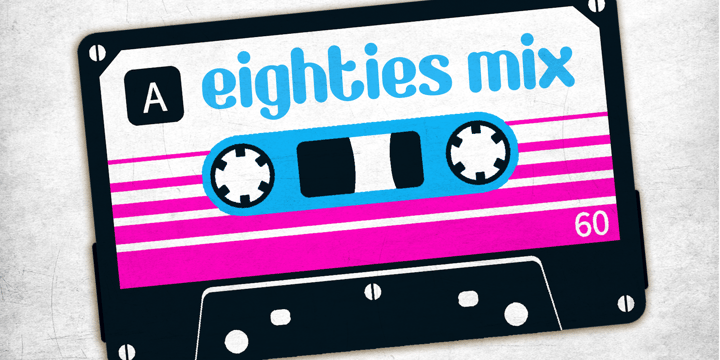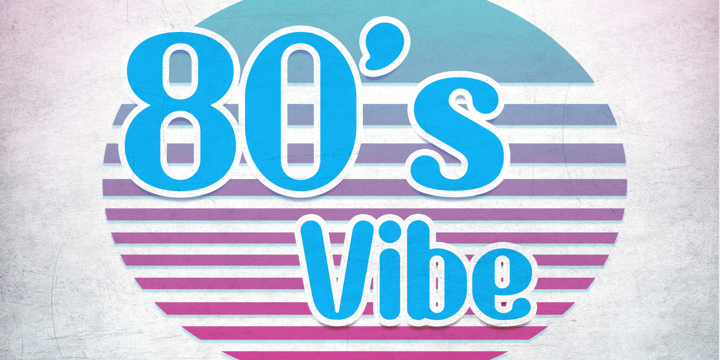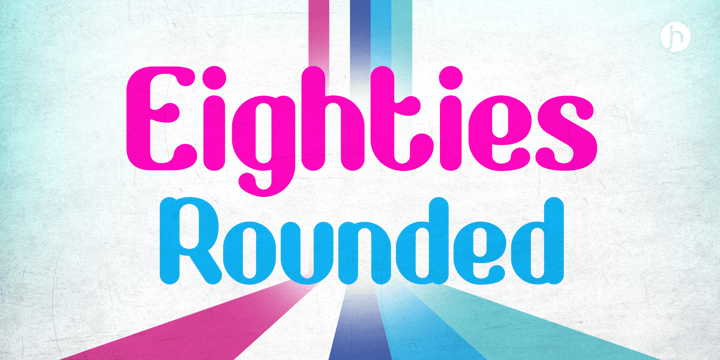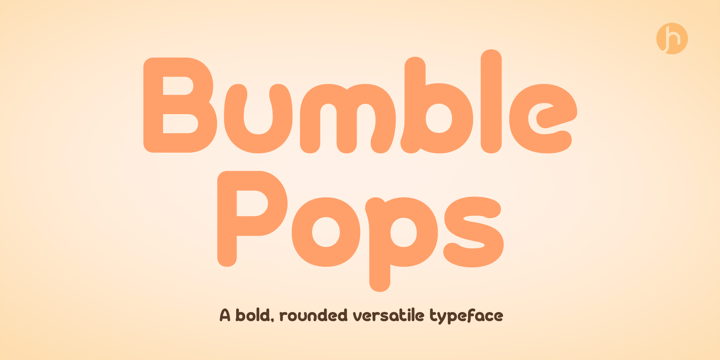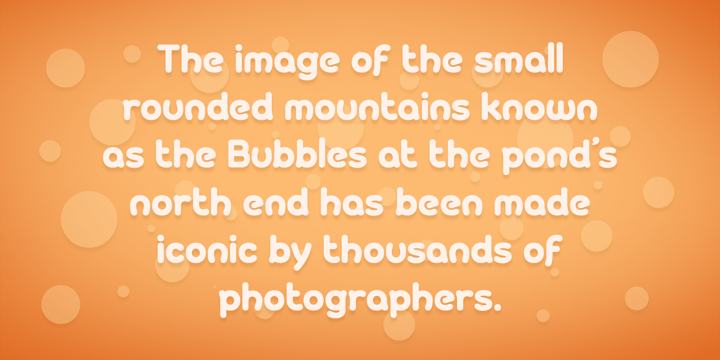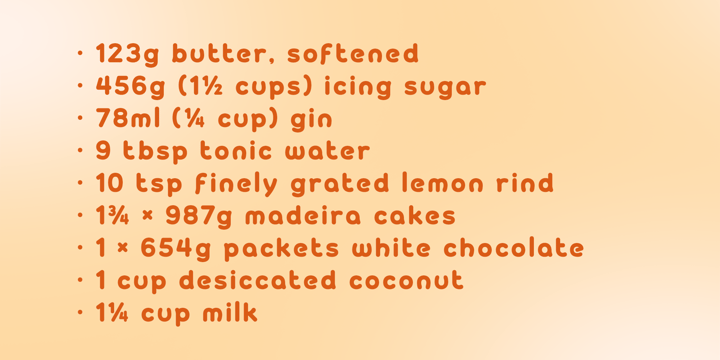
Joe Hewitt
Hi, I'm Joe. Nice to meet you.
I have worked for many years as a designer, but my career never really gave me the chance to express myself in a way I truly enjoyed. However, in 2018, I met my fiance through a computer game of all things. One year later, I moved from England to Sweden and started a new phase of my life. Fresh start. Both exciting and scary, not just for my career! I took some time, made a list, then thought of designing fonts and promptly threw the list away. It just felt right. Thankfully it still does today.
My long and short term goal is simple. To do something I am passionate about and design some fonts in the process. Typography is a fascinating and diverse field, and I look forward to immersing myself more in the subject. I plan to specialise in display fonts due to an interest in the artwork that often accompanies books, movies, TV and gaming. However, I do not wish to limit myself, so watch this space!